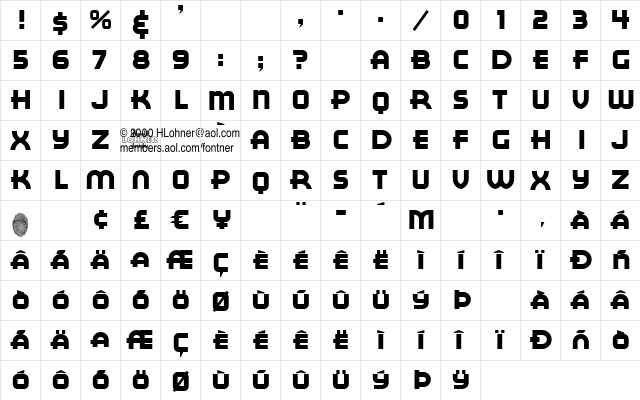
Red Circle Regular
Design Context for Red Circle Typeface
Red Circle offers clean, dependable letterforms without strong stylistic allegiance, making it a practical choice for designers who need flexibility.
Pro Tip: Pair Red Circle with a font of contrasting weight or personality to build a more expressive typographic hierarchy.